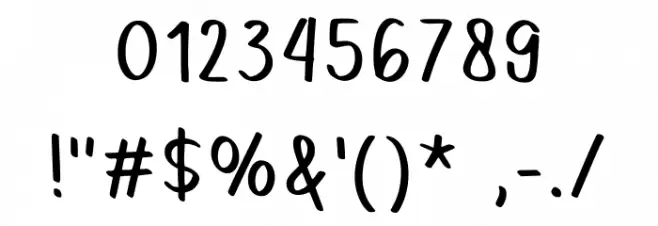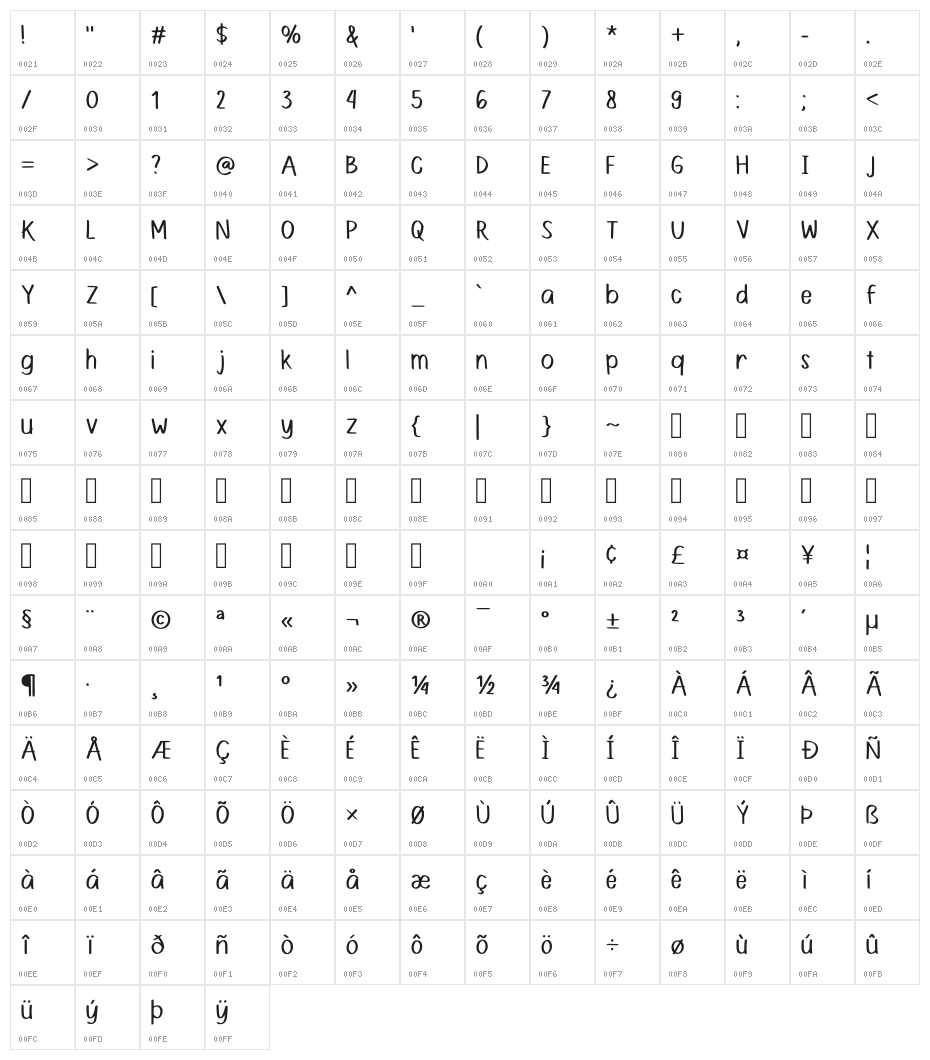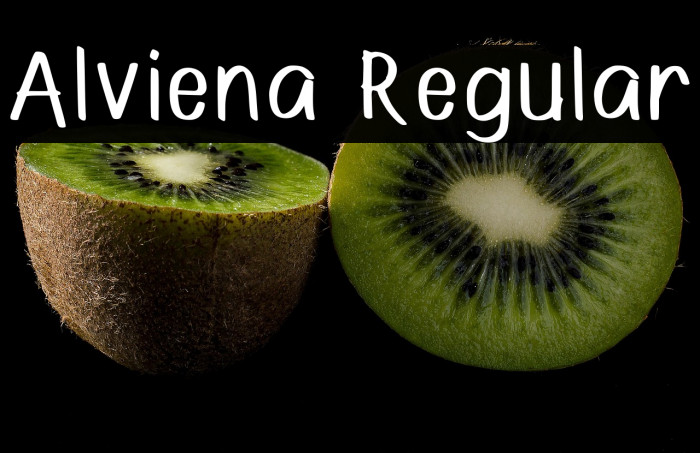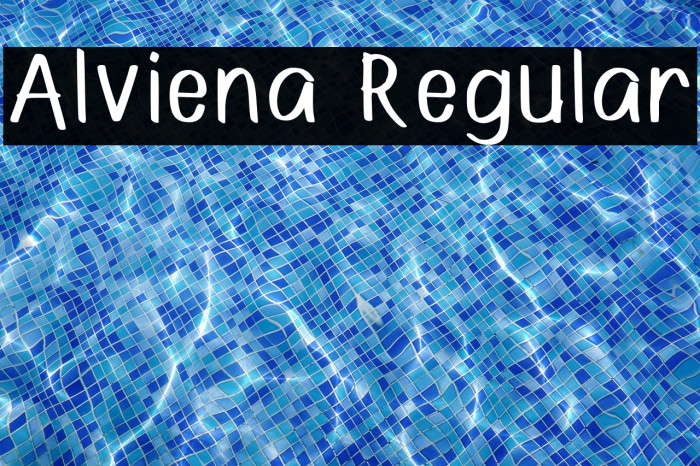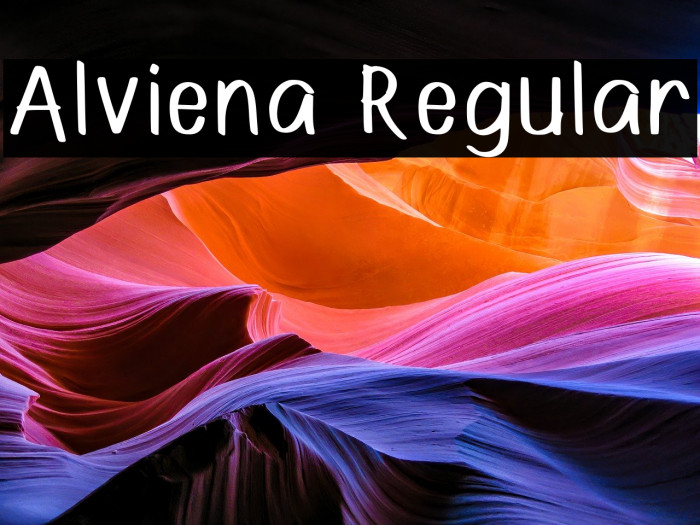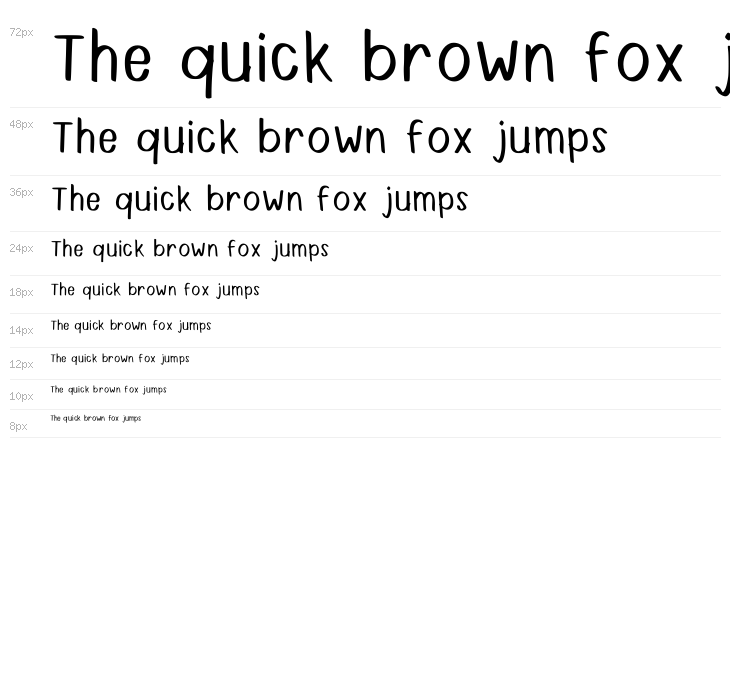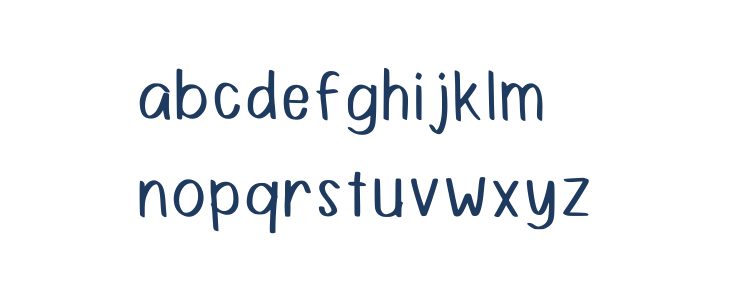
Alviena Regular Font
Alviena Regular Description
This font features a playful and casual handwritten style, characterized by its smooth, rounded edges and slightly irregular letterforms that give it a friendly and approachable appearance. The uppercase and lowercase letters maintain a consistent flow, with a slight slant that adds to its informal charm. The numerals and special characters are designed to match the overall aesthetic, ensuring a cohesive look across all text elements. Its simplicity and readability make it suitable for a variety of applications where a personal touch is desired.
| Proposed Projects | Ideal for greeting cards, personal invitations, children's books, and playful branding projects. |